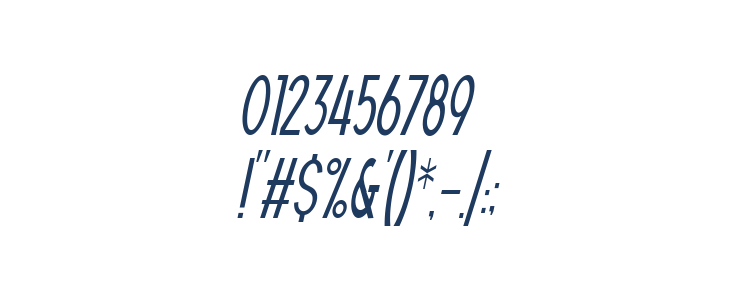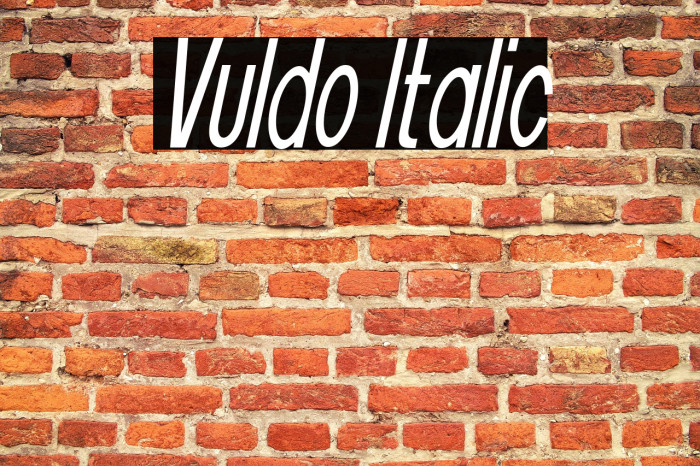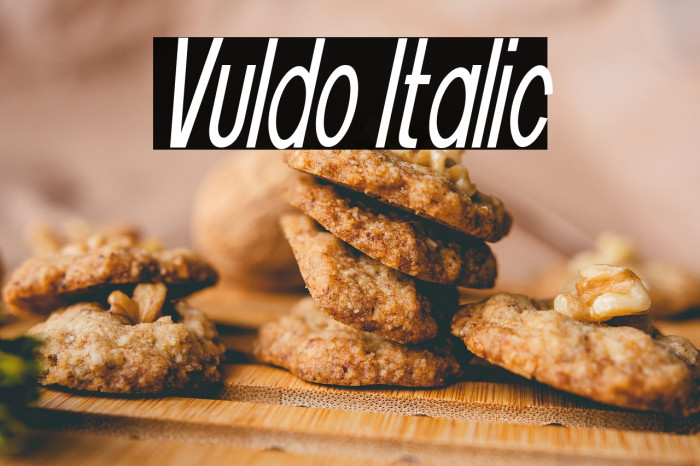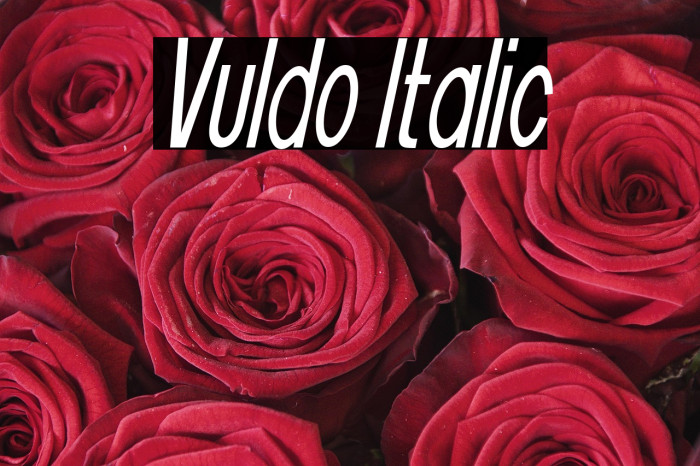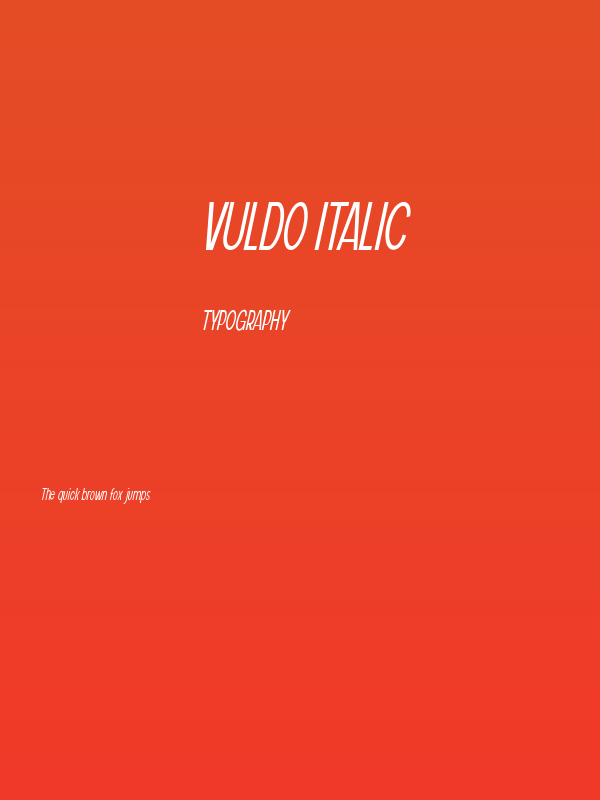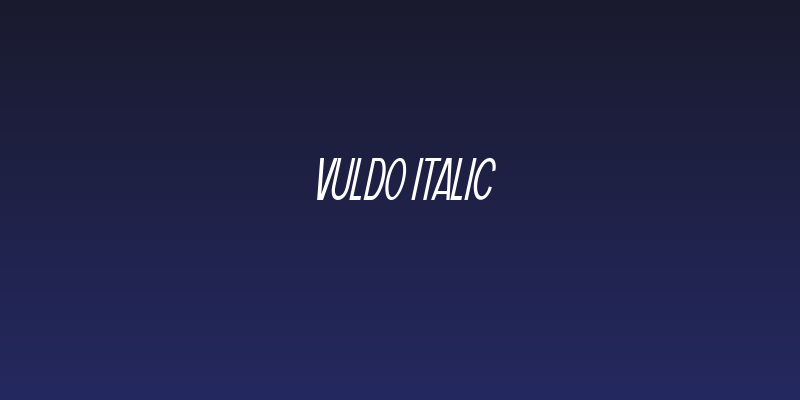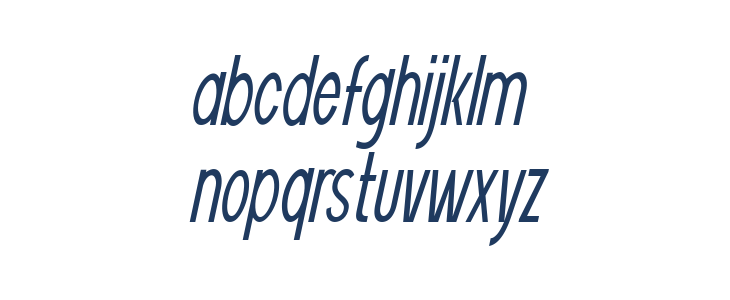
Vuldo Italic Font
Vuldo Italic Description
This font features a sleek and modern italic style, characterized by its slanted and elongated letterforms. The strokes are consistent and smooth, providing a sense of fluidity and movement. The uppercase and lowercase letters maintain a uniform height, contributing to a cohesive appearance. The numerals and special characters are designed to match the overall aesthetic, ensuring readability and style. This font's design is both elegant and contemporary, making it suitable for a variety of applications.
| Use Case | Headlines, Logos, Editorial design |
| Proposed Projects | Ideal for branding, advertising, and editorial design projects that require a modern and stylish touch. |